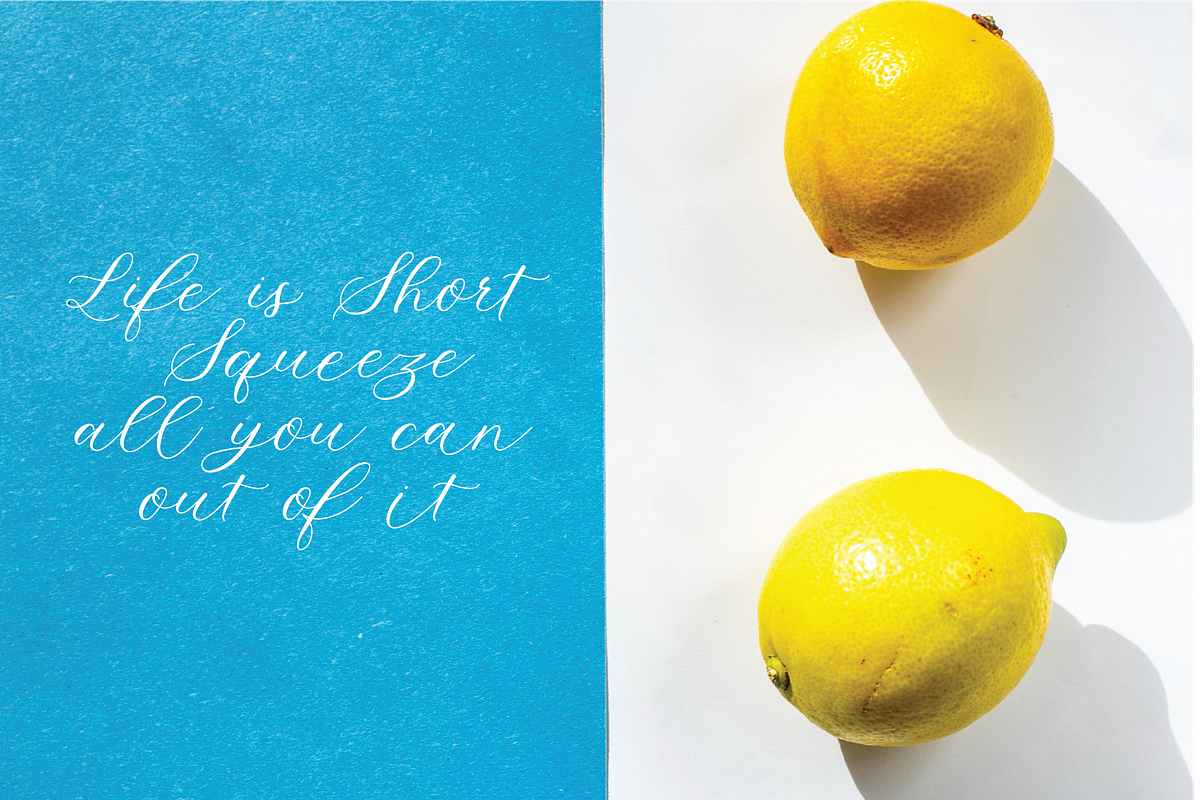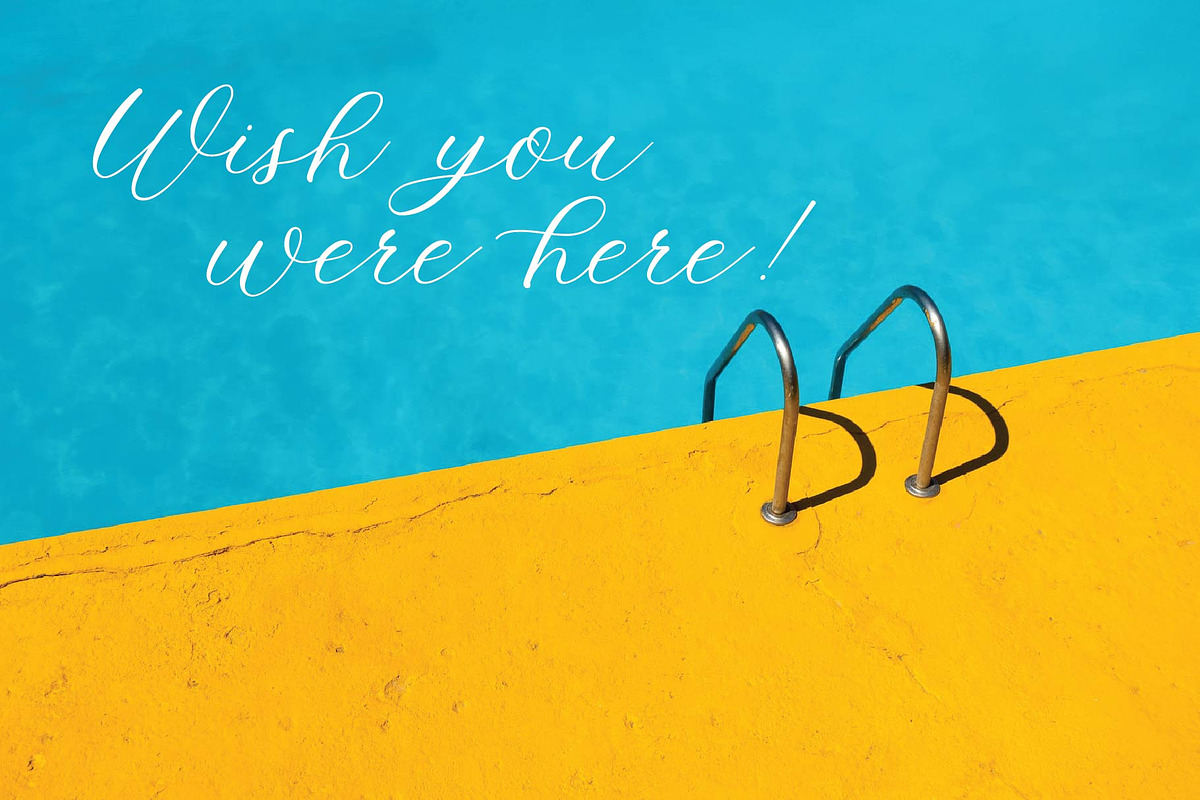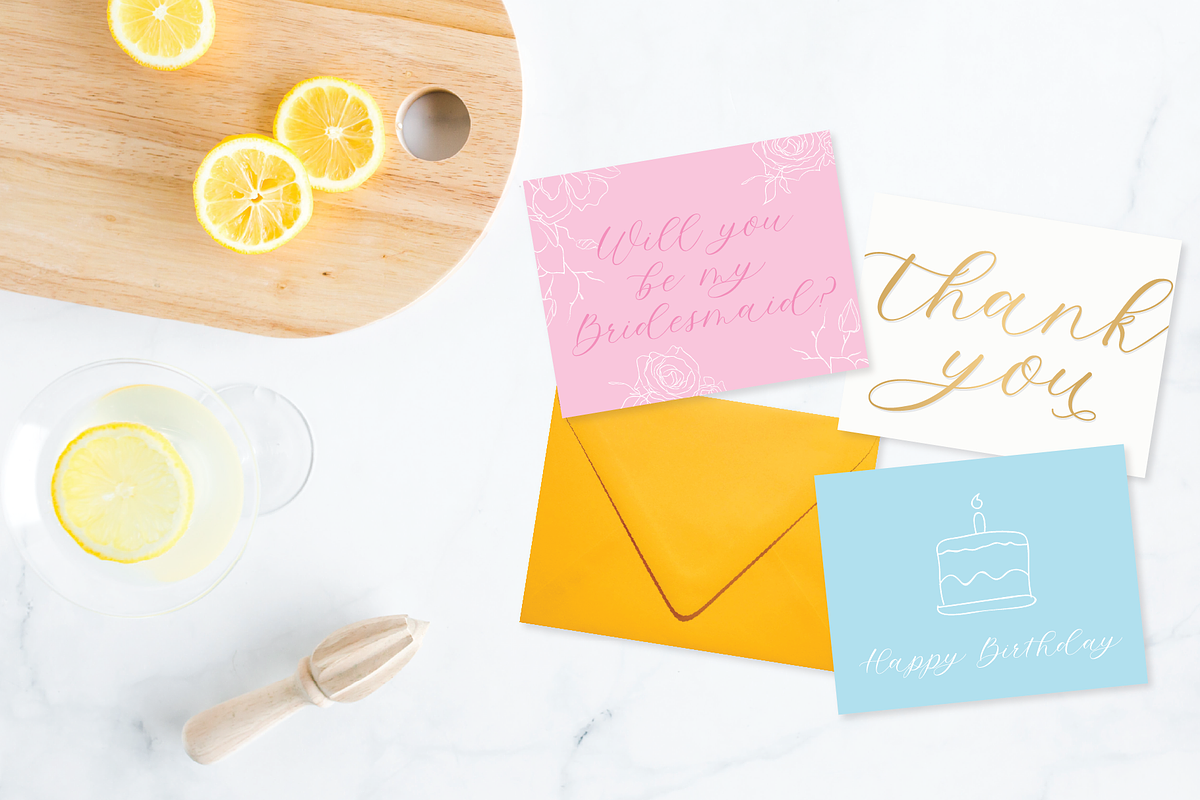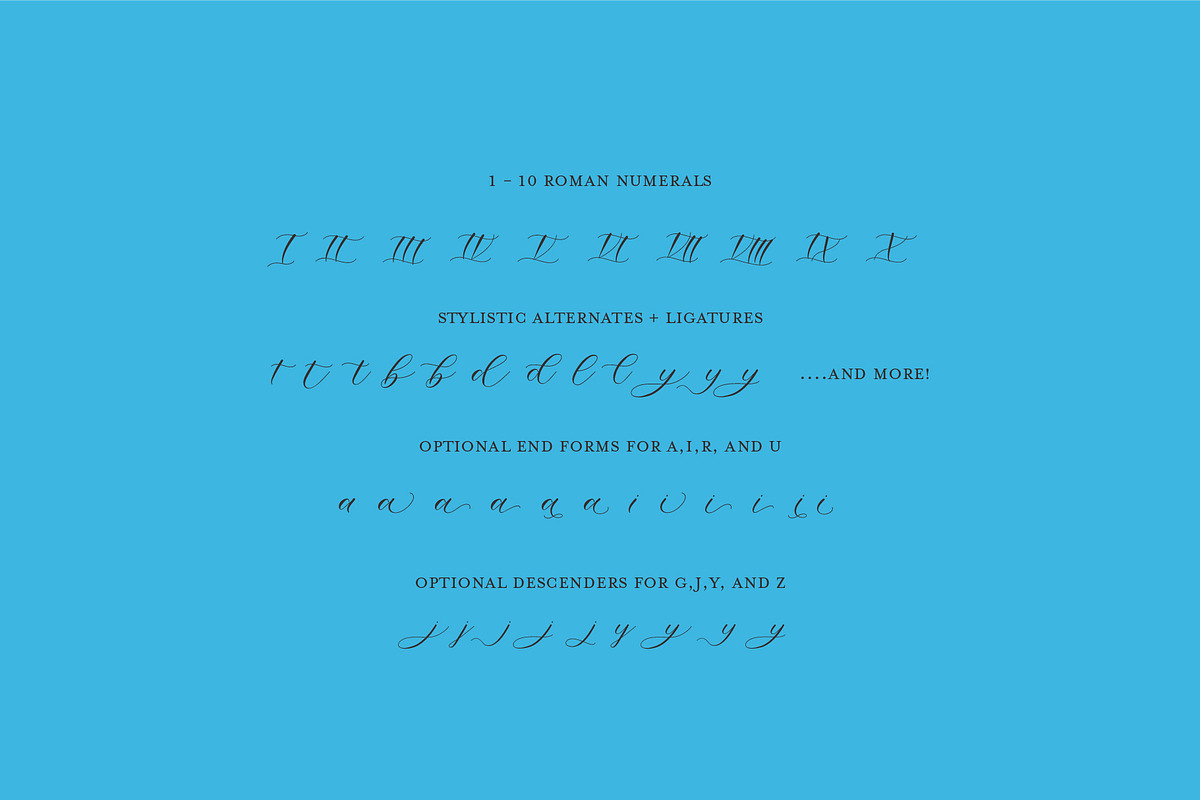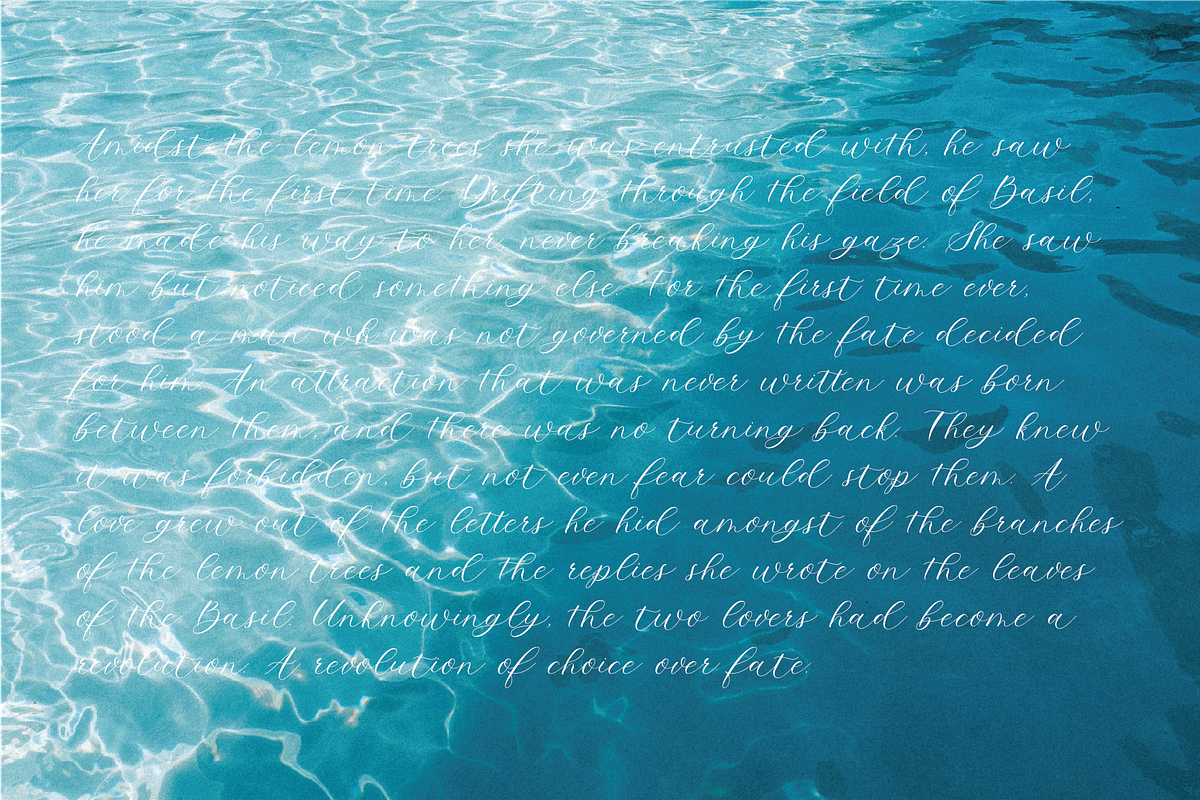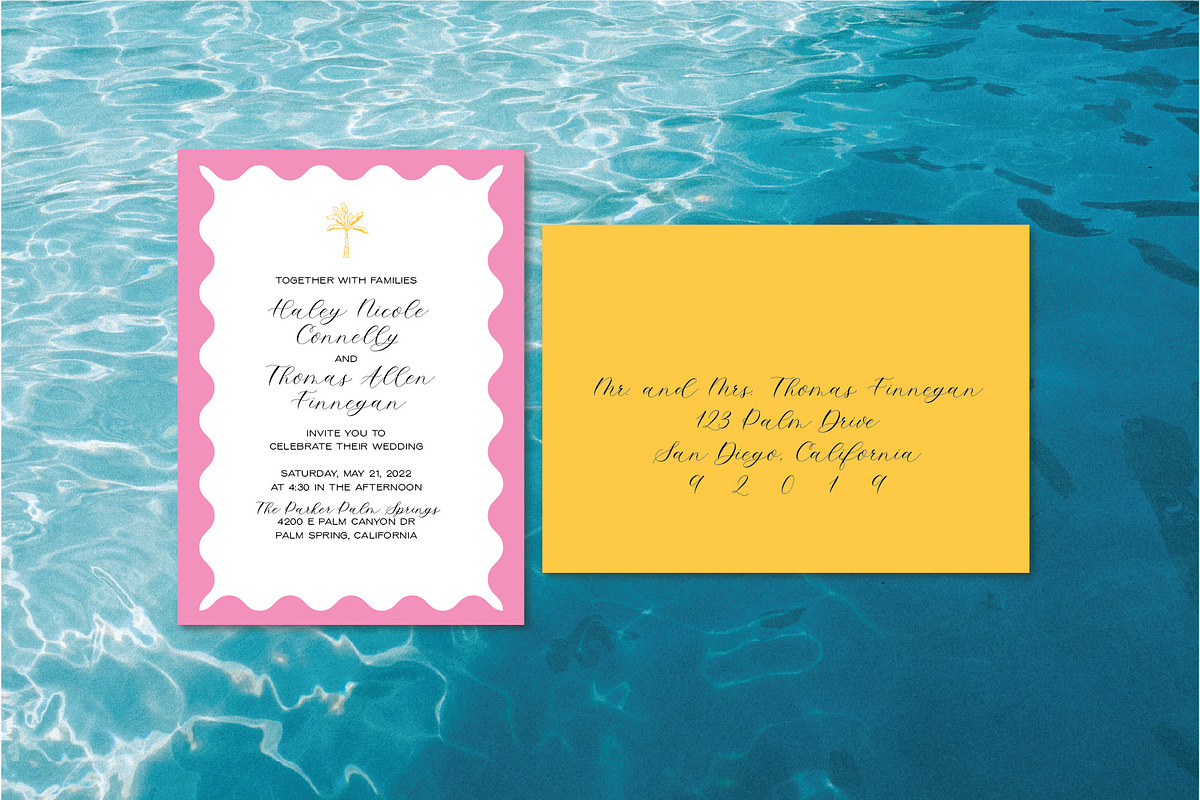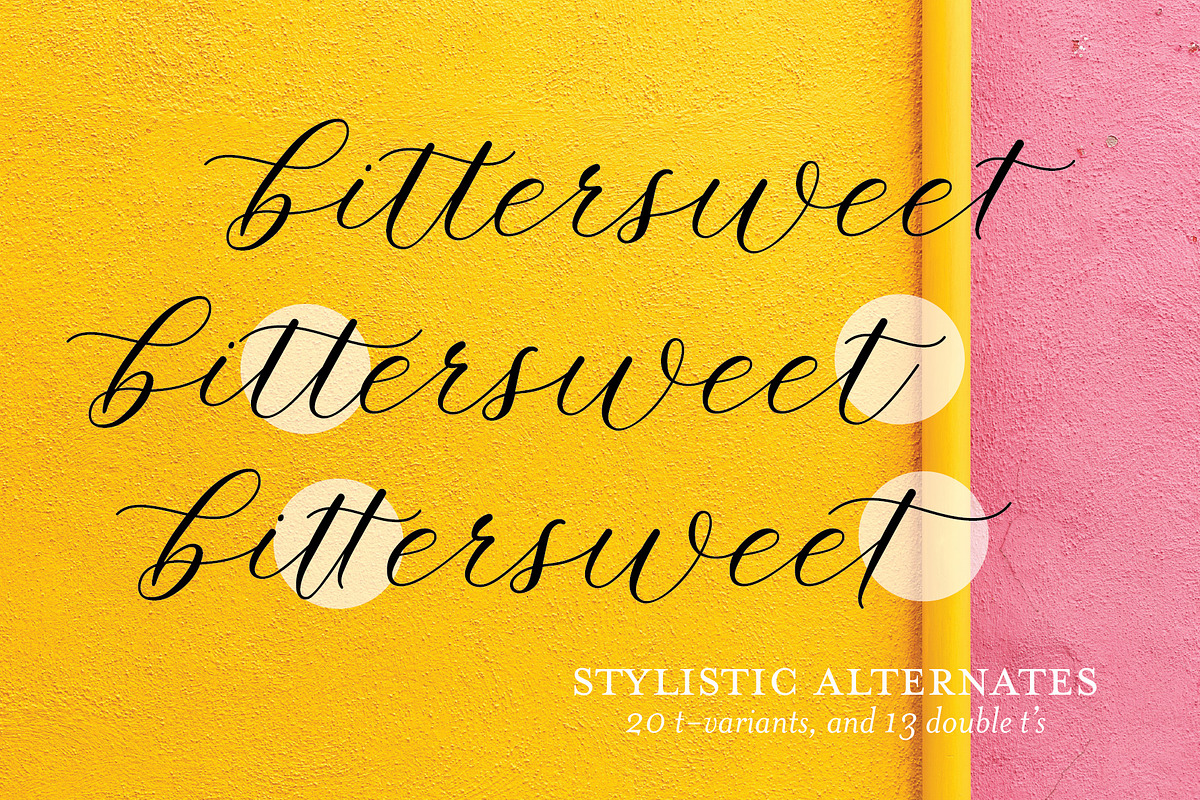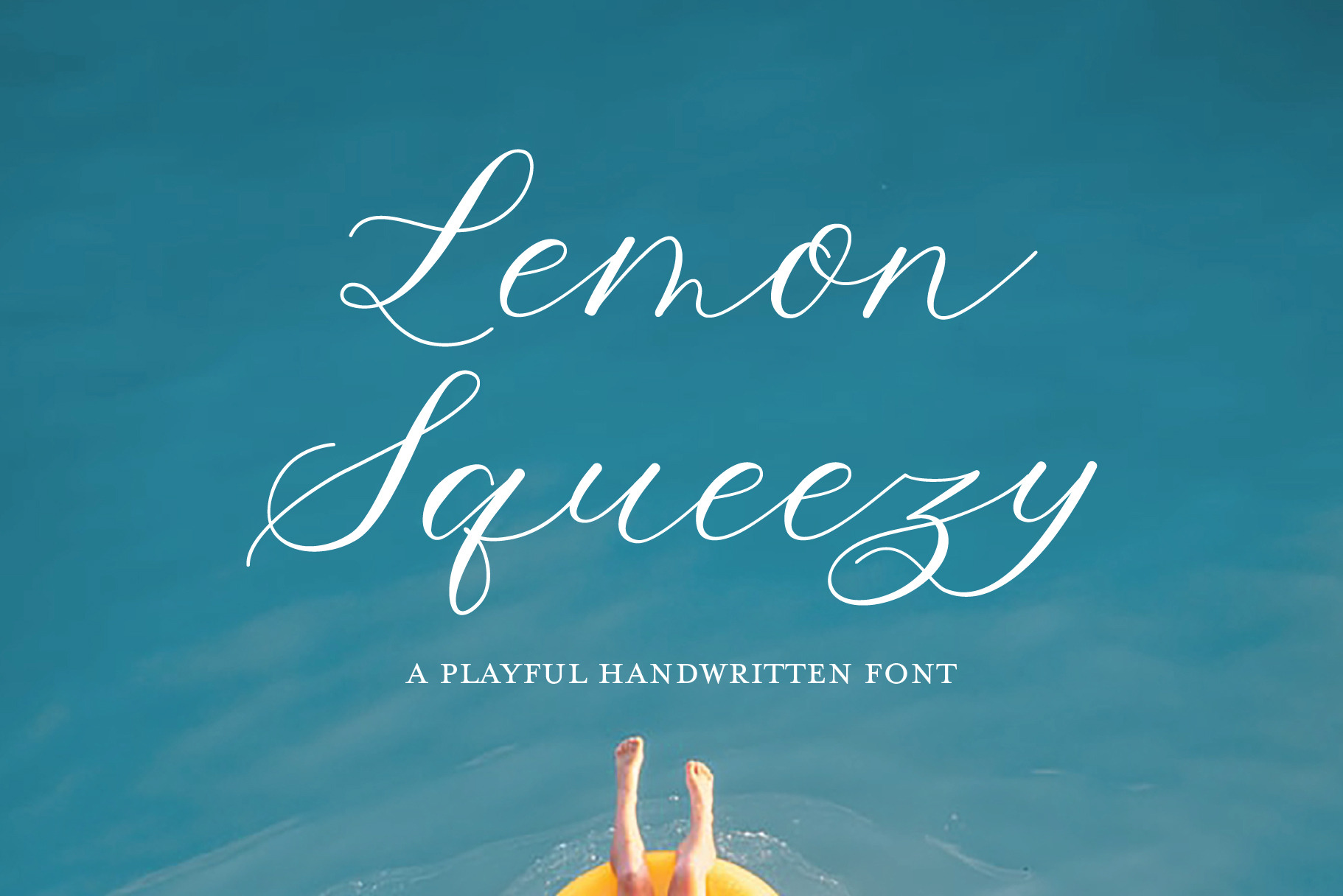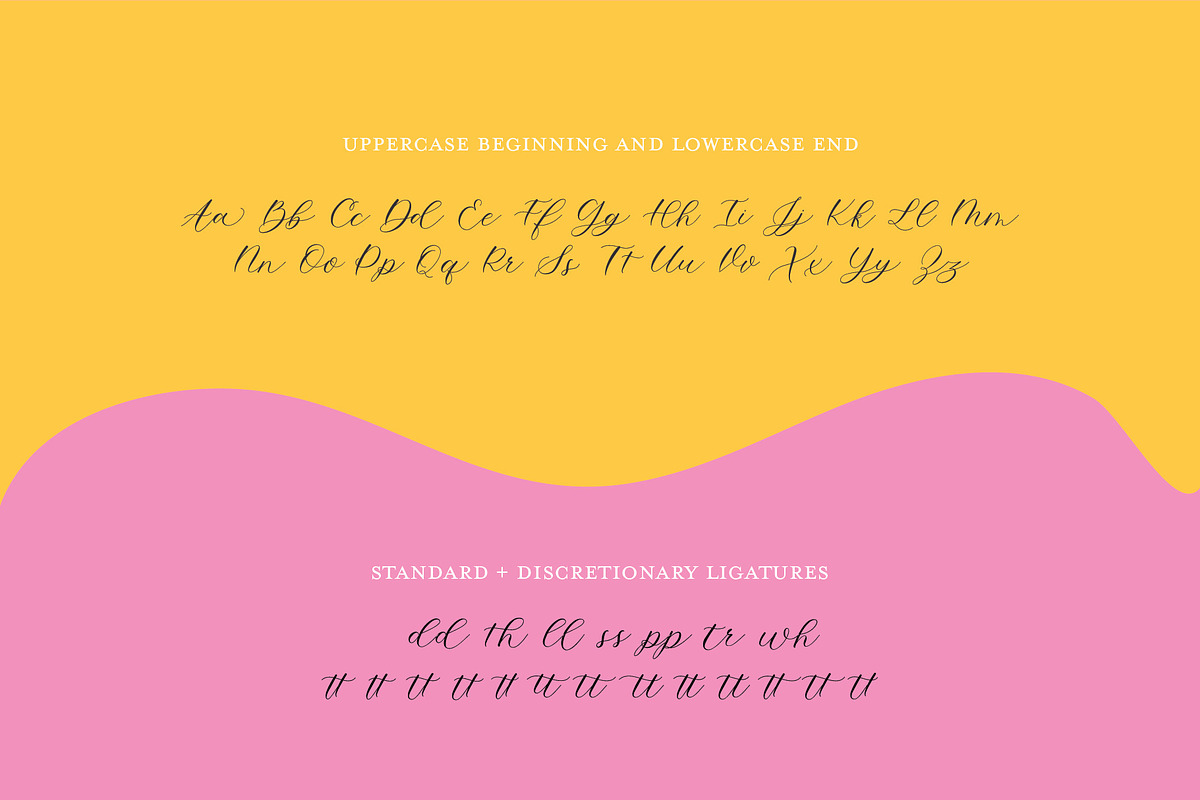
Lemon Squeezy Calligraphy Font
Lemon Squeezy is a modern calligraphy font that's fresh, bouncy and fun! Made with wedding invitations in mind, this font is perfect for stationery, packaging, social media templates, magazine layouts, artist prints, SVG cutting, Cricut projects, and more!
With 347 total characters, and tons of stylistic alternates - you'll be able to create that perfectly imperfect calligraphy style of your dreams!
Lemon Squeezy contains over 300 unique, coded features for a realistic, handwritten look: 7 standard ligatures, full Western European language support (including Dutch), over 100 stylistic alternates, 1-10 Roman Numerals, special ending forms on certain letters, and alternate bowls on ascenders and descenders.